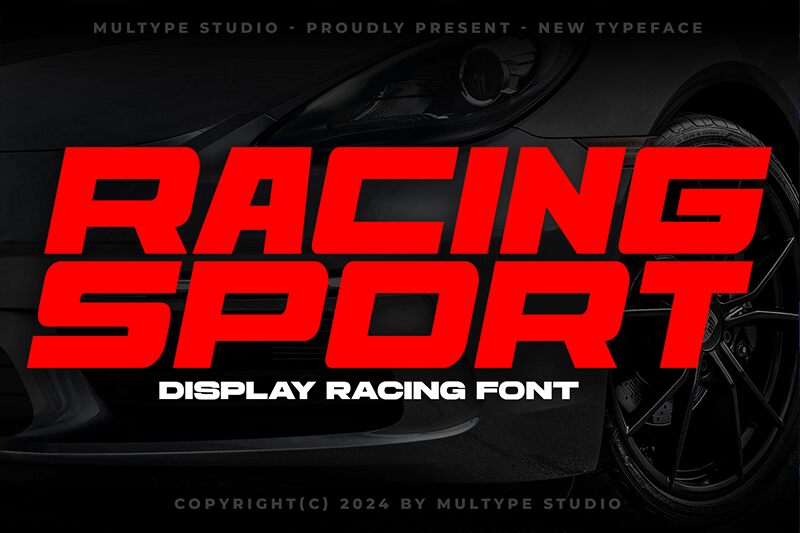
Racing Sport Display
Racing Sport Display font by Multype Studio is a modern expanded sans serif inspired by the typography used in car racing. A sleek font with good readability, it comes with all kinds of angular accents that add to the overall shortcut look. Use this bold font to design powerful headings and get your stock car message across.